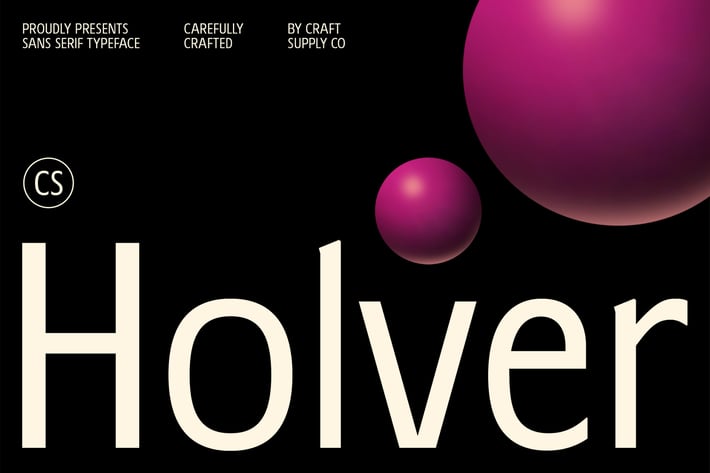
Holver – Contemporary Font
CS Holver Font: A Contemporary Font for Modern Design
Clean Geometric Shapes for a Versatile Look
CS Holver is a modern sans serif font characterized by its clean, geometric shapes. This contemporary design offers a sleek and minimalist aesthetic, making it an excellent choice for a wide variety of design applications. The balanced, symmetrical forms create a visually appealing structure that ensures readability while maintaining a sophisticated and professional appearance.
Ideal for Branding and Corporate Materials
The versatility of CS Holver shines in branding and corporate designs, where clarity and professionalism are key. Its modern shapes and well-proportioned letters provide a polished, refined look that enhances logos, presentations, and corporate materials. Whether used in business documents, websites, or product packaging, CS Holver communicates a sense of reliability and forward-thinking style.
Readable and Professional for Presentations
With its clean lines and open shapes, CS Holver offers excellent legibility, making it perfect for presentations and editorial layouts. The font’s contemporary design allows text to stand out clearly, ensuring that your message is delivered effectively. Its modern appeal suits today’s design trends while also offering a timeless quality that works across various mediums.